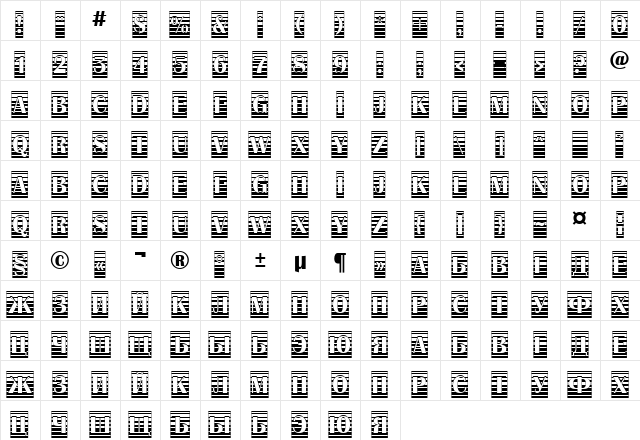
a_AlbionicTitulCmGrd Regular
Design Context for a_AlbionicTitulCmGrd Typeface
a_AlbionicTitulCmGrd is a composed and adaptable typeface that performs quietly and consistently across a wide range of design contexts.